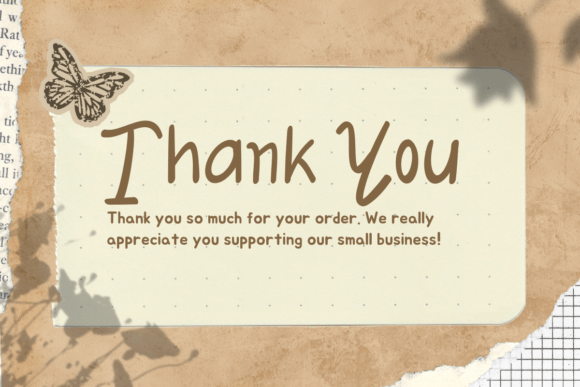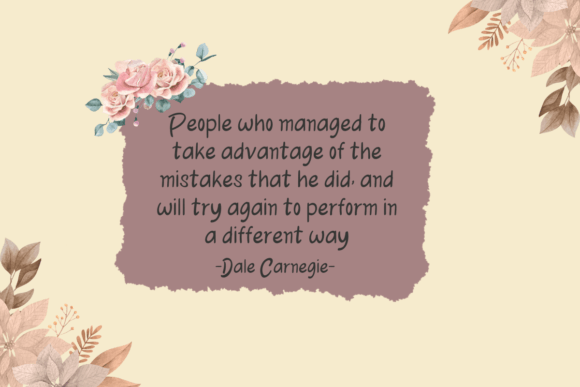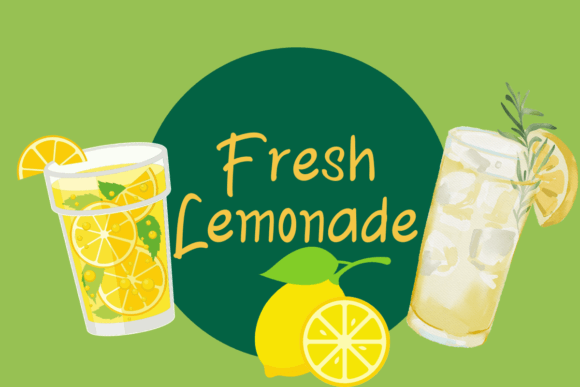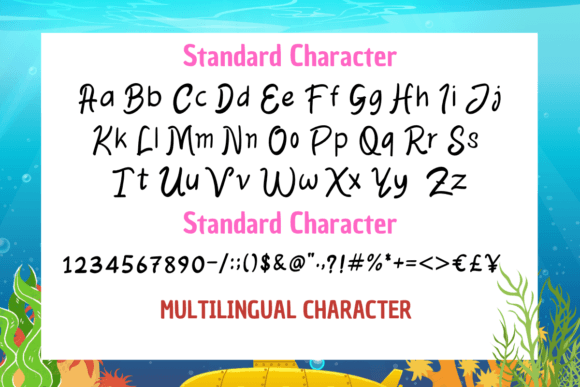
Meet Your New Creative Companion: Funky Fizzle Font
Have you ever stared at a blank page, desperate for that perfect font to bring your design to life? You know, that magical moment when the words start flowing, and your vision begins to take shape? That’s exactly what inspired us to create the Funky Fizzle Font, a versatile and unique typeface that captures the essence of handcrafted artistry.
The Funky Fizzle Font is designed to be your go-to companion for all your design needs. Whether you’re crafting captivating magazine layouts, infusing quotes with a natural charm, or establishing a memorable brand identity through logos, this font has got you covered. Its natural, distinctive charm makes it a valuable asset for designers looking to add a touch of personality to their work.
Funky Fizzle Font Key Features
- Font Family: Funky Fizzle Font is a unique, hand-drawn font family consisting of 6 different font styles: Funky Fizzle, Funky Fizzle Bold, Funky Fizzle Italic, Funky Fizzle Bold Italic, Funky Fizzle Outline, and Funky Fizzle Shadow.
- Character Set: Funky Fizzle Font includes a wide range of characters, including Latin, Cyrillic, and Greek alphabets, as well as punctuation marks and symbols.
- Unique Characteristics: Funky Fizzle Font features a distinctive, playful design with a mix of rounded and angular shapes, making it perfect for creating eye-catching headlines and titles.
Funky Fizzle Font Review
I recently had the chance to work with the Funky Fizzle Font, and I must say it’s been a wild ride. Let’s dive into what works well and what doesn’t.
- Unique Character**: Funky Fizzle Font brings a much-needed dose of quirkiness to any design project. Its eclectic feel will add a touch of personality to your work.
- Highly Versatile**: I was surprised by how well this font performed across different font sizes and styles. It’s perfect for creating eye-catching headings or adding flair to body text.
- Great for Emotional Design**: Funky Fizzle Font is an excellent choice when you need to convey a sense of fun, playfulness, or excitement. It’s sure to grab the user’s attention and leave a lasting impression.
- Lack of Legibility**: While Funky Fizzle Font is perfect for headings, it can become overwhelming when used for large blocks of body text. Make sure to use it sparingly to avoid readability issues.
- Not Suitable for Formal Content**: Due to its playful nature, Funky Fizzle Font may not be the best choice for formal or professional projects. Save it for more casual or creative endeavors.
Overall, I think Funky Fizzle Font is a great addition to any designer’s toolkit. With its unique character and versatility, it’s sure to add some excitement to your designs. Just be mindful of its limitations, and you’ll be golden.
Tips for Getting the Most Out of Funky Fizzle Font
To get the most out of Funky Fizzle Font, try using it in bold or italic styles to add emphasis to your text.
Use Funky Fizzle Font in combination with other fonts to create a unique and eye-catching design.
Funky Fizzle Font is perfect for:
- Creating eye-catching headings and titles.
- Adding a playful touch to your designs.
- Creating a unique and memorable brand identity.
Are there any font pairing recommendations for Funky Fizzle Font?
Yes, we recommend pairing Funky Fizzle Font with a clean sans-serif font, such as Open Sans or Lato, for optimal readability. You can also experiment with pairing Funky Fizzle Font with other bold, playful fonts to create a unique and eye-catching design.